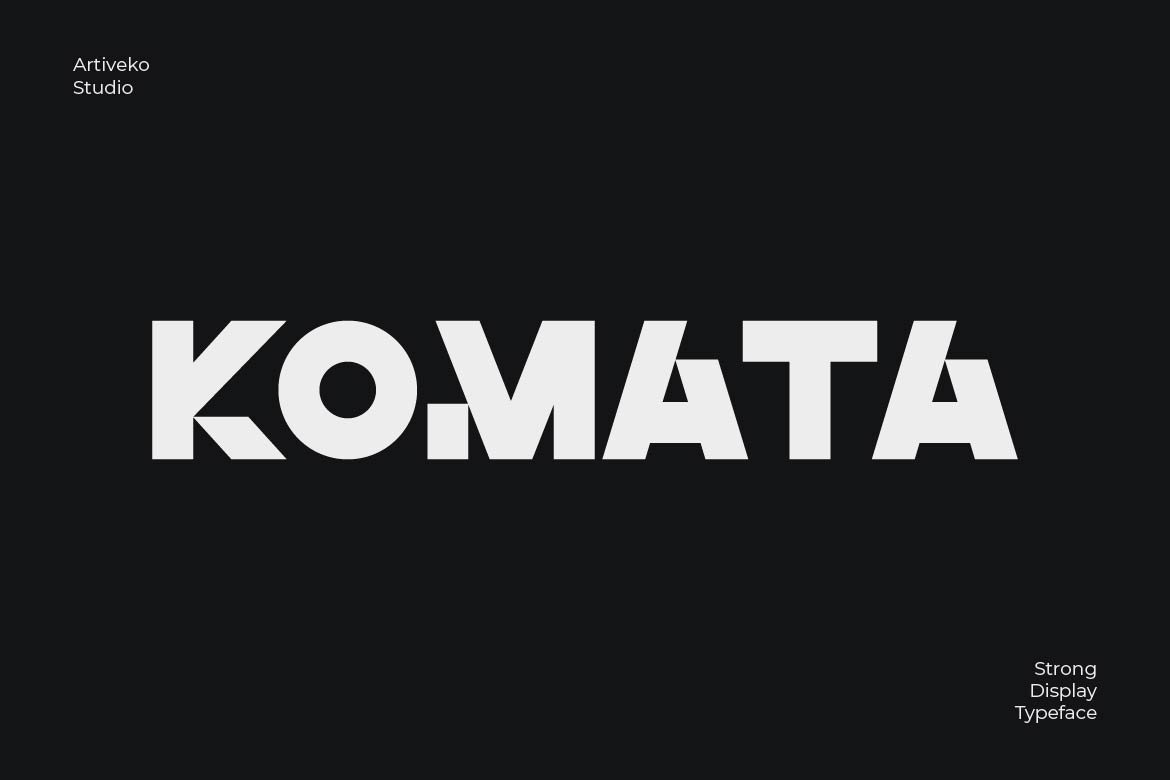
- Komata – Bold Geometric Display Font
Komata is a bold display typeface designed to create strong, confident, and modern visual impact. With solid letterforms, clean geometry, and balanced proportions, Komata delivers powerful typography that stands out in any composition.
Perfect for headlines, posters, logos, branding, packaging, and advertising, Komata offers a bold presence while maintaining clarity and readability. Its modern structure makes it highly versatile across both print and digital design, from campaign visuals to brand identity systems.
Komata is ideal for designers who want to communicate strength, confidence, and clarity through bold typography.
Komata is not just a font — it’s a modern statement of power and precision.